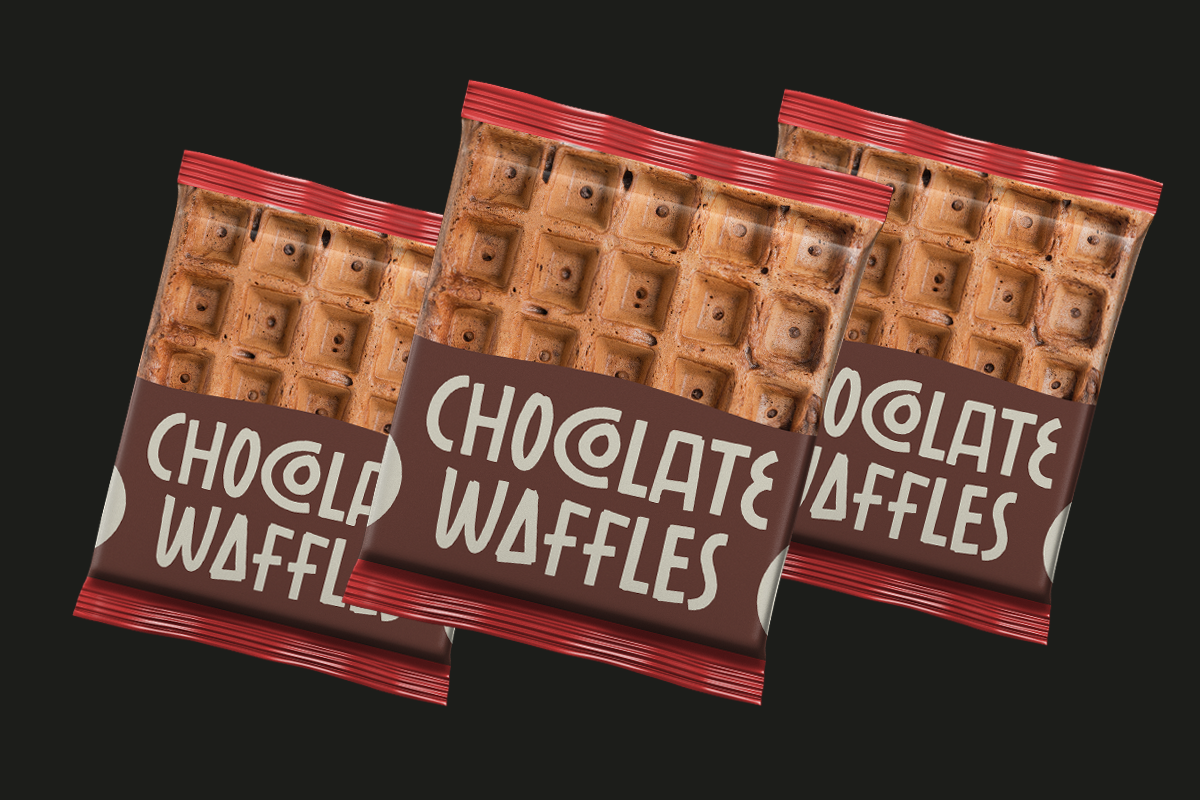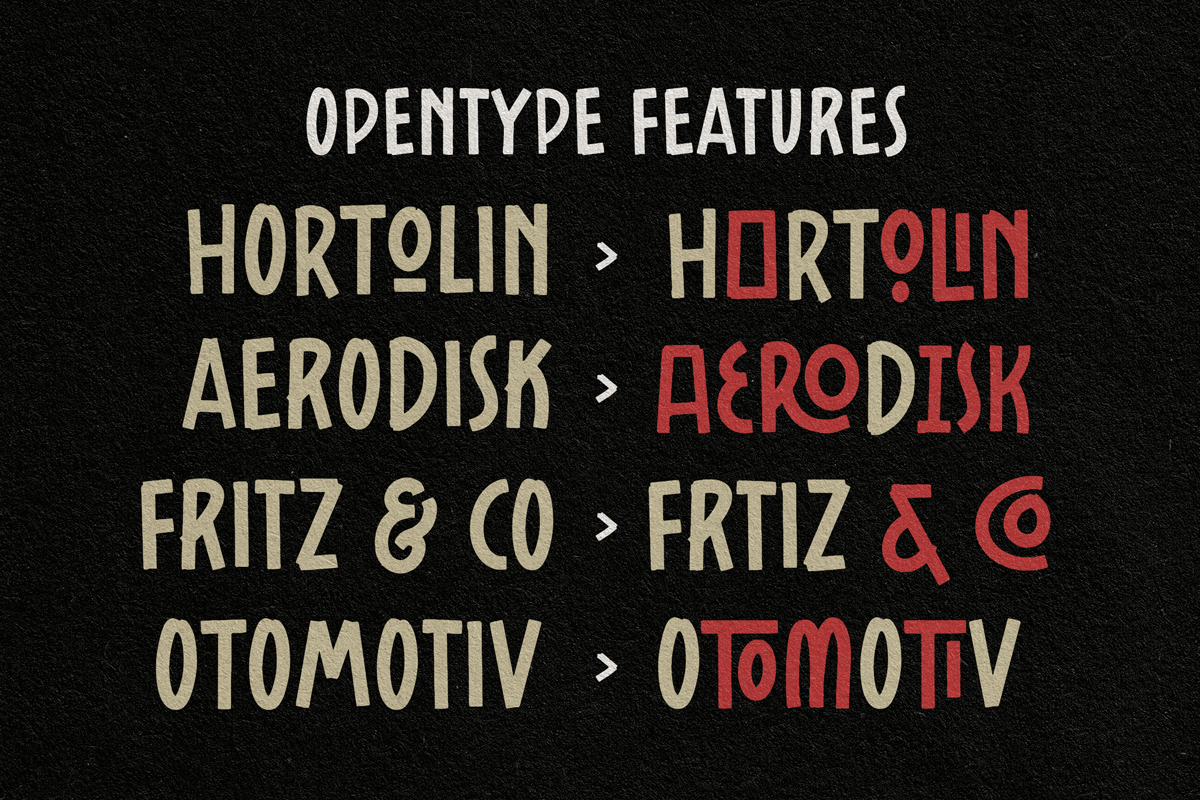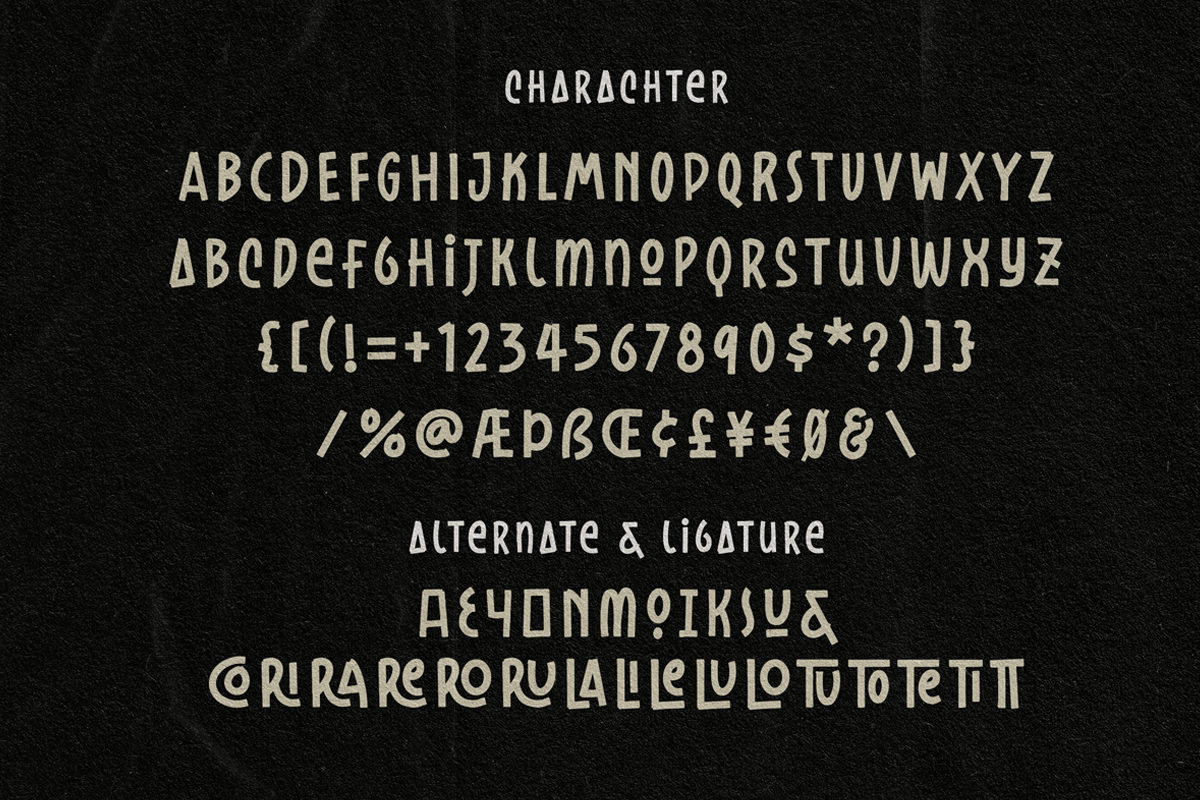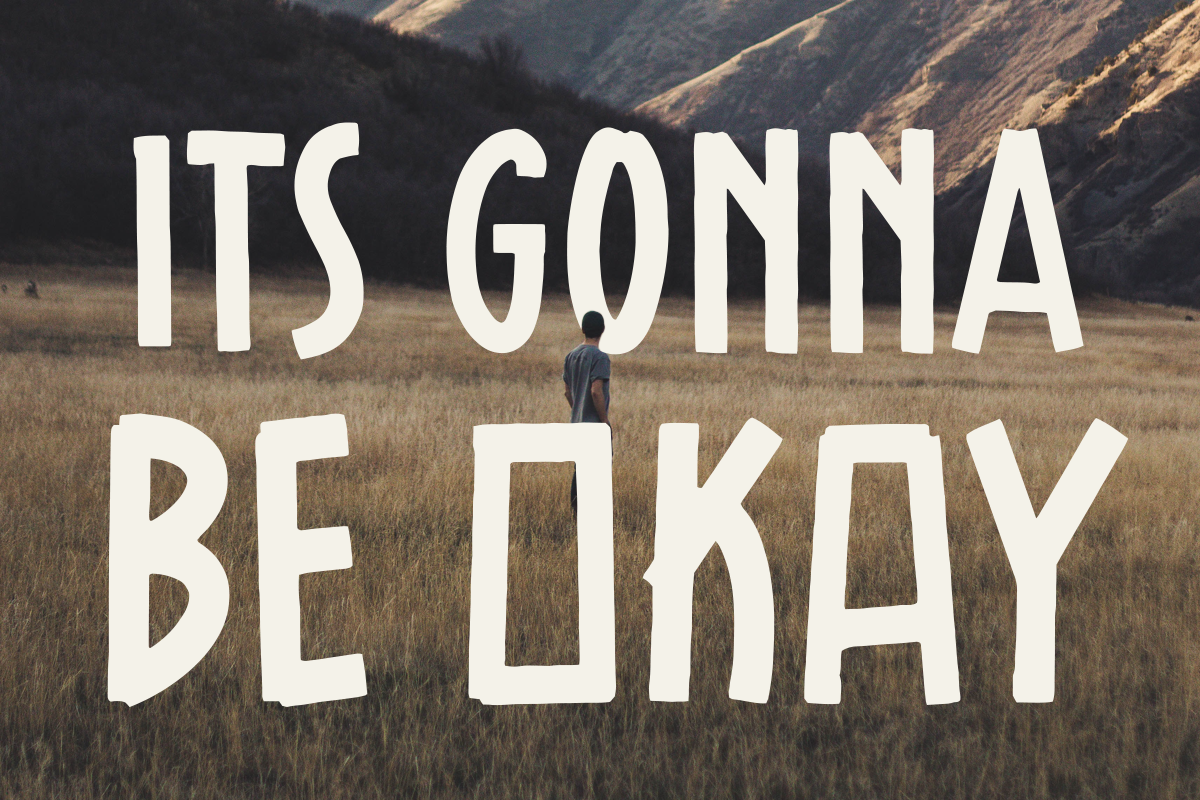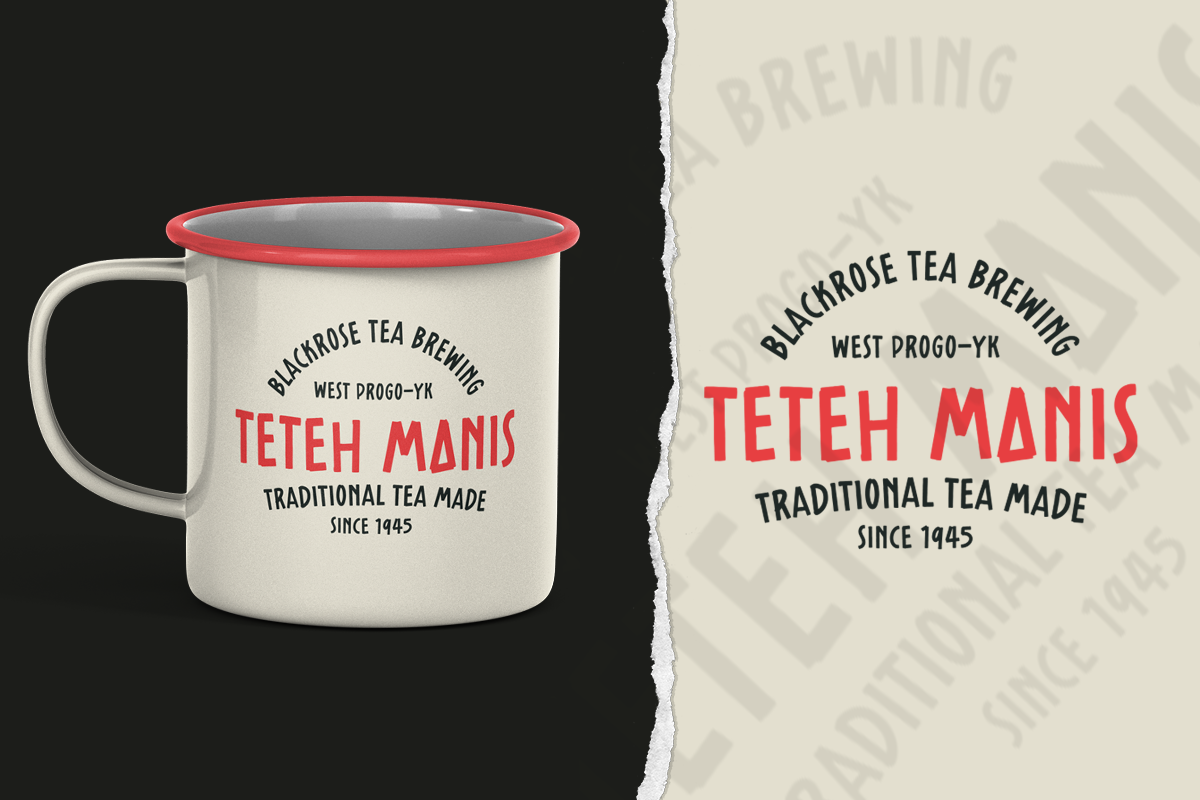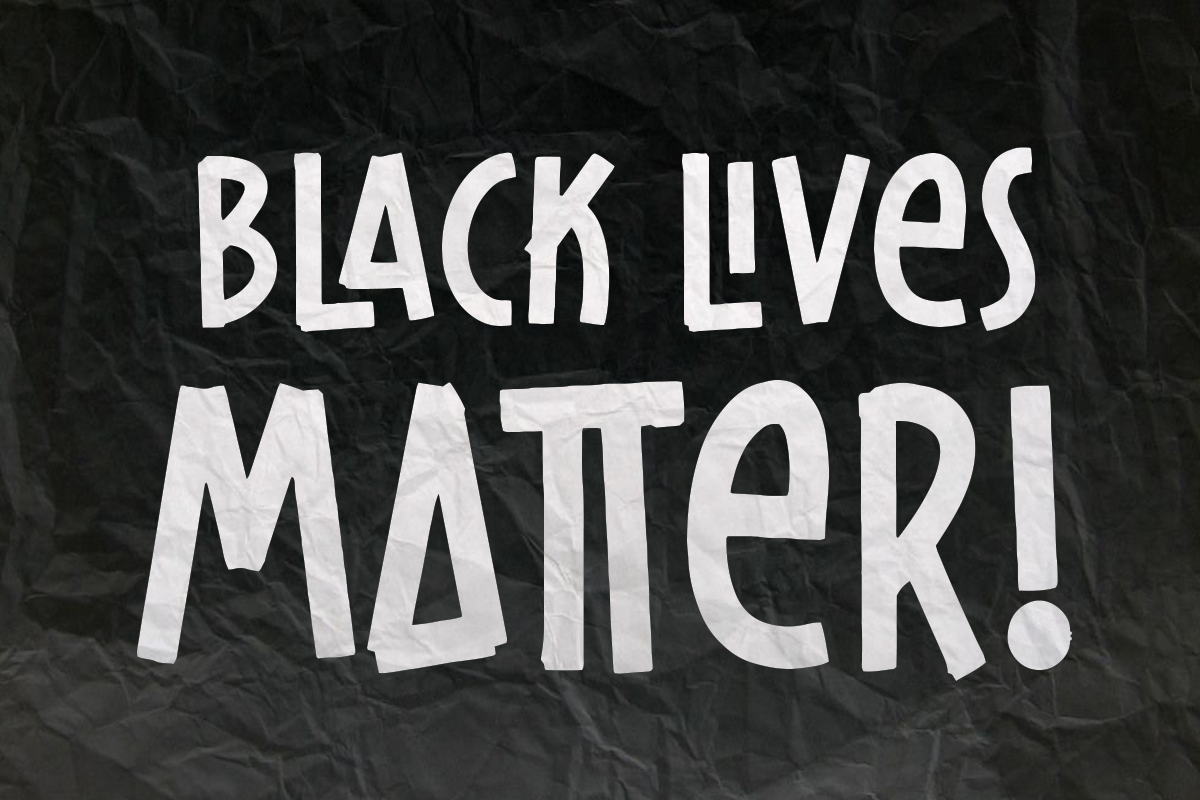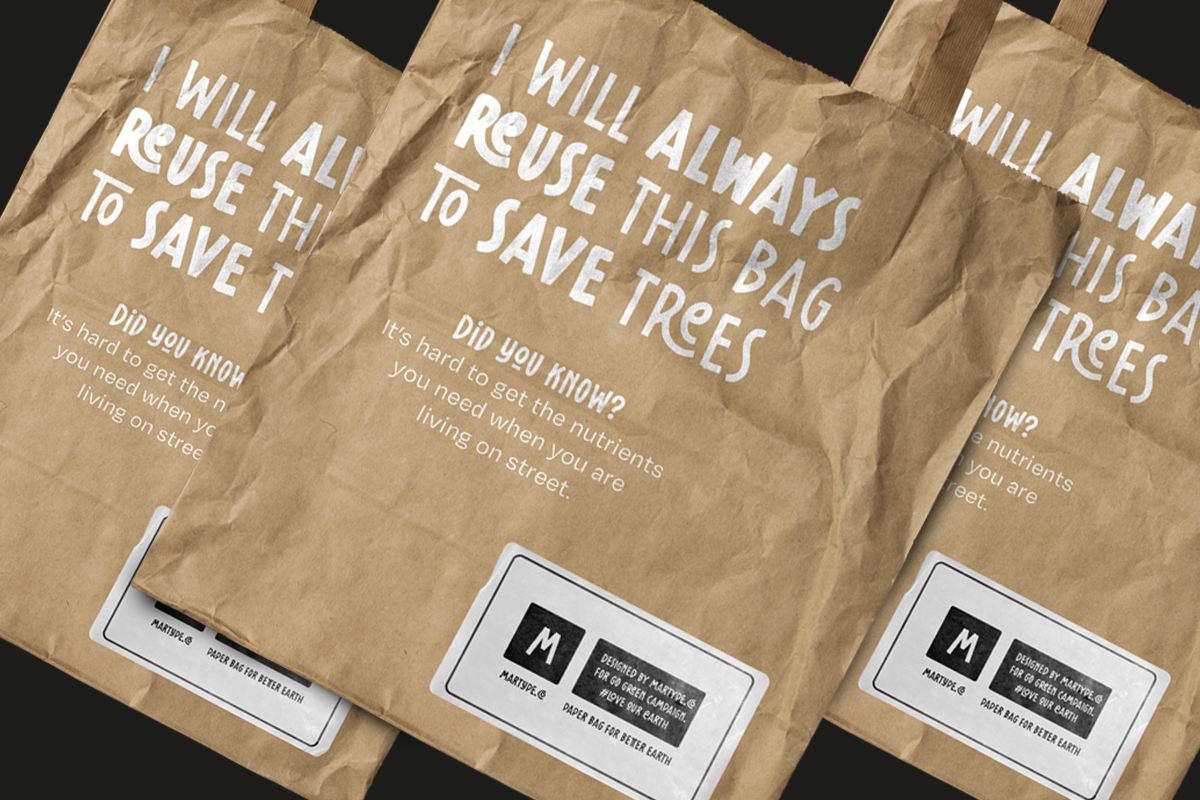
Labroses Quirky Typeface
Labroses Typeface is a handdrawn font designed with carefully handcrafted. Also suitable for branding, T-shirt, Wedding Invitation, Vintage Design, Logotype, and any project. With three style make you easier to design everything.
Multilingual Support support many different languages 20+ .
Special Character Also added some special character you can check in the picture.
- Labroses Thin
- Labroses Regular
- Labroses Bold
Labroses Quirky Typeface by Martype fits naturally into Branding, posters, packaging, typography.